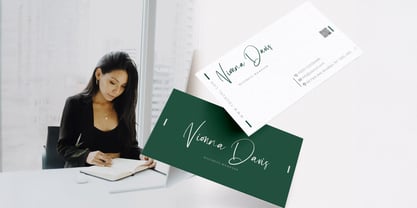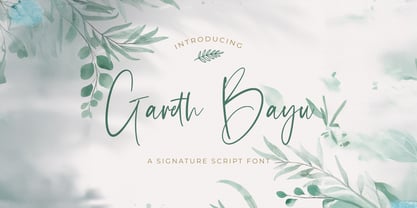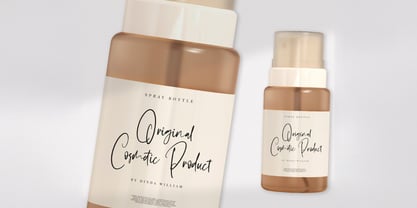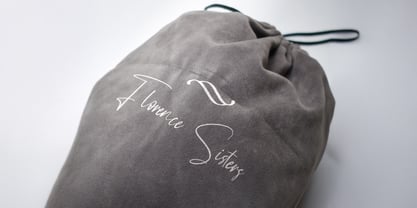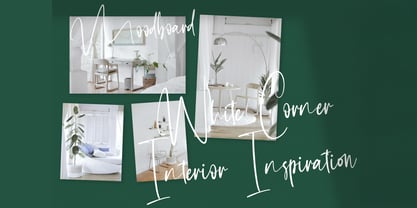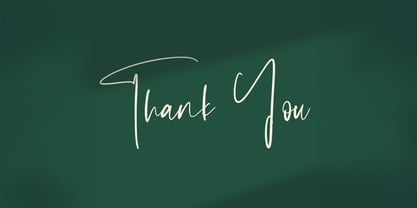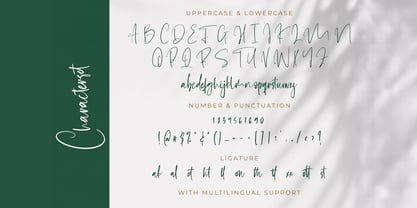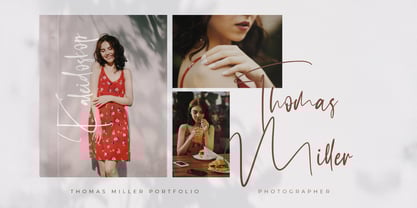
The Gareth Bayu Font Family was designed by Virgiawan Listanto and published by Stringlabs Creative Studio. Gareth Bayu contains 1 styles. More about this family
Gareth Bayu is a natural and elegant handwritten font that captures the essence of modern calligraphy with a personal touch. With its flowing strokes and smooth curves, this font feels effortless and heartfelt perfect for designs that need authenticity and charm. Ideal for branding, invitations, quotes, and lifestyle content, Gareth Bayu brings a soft, handcrafted feel to your creative projects.